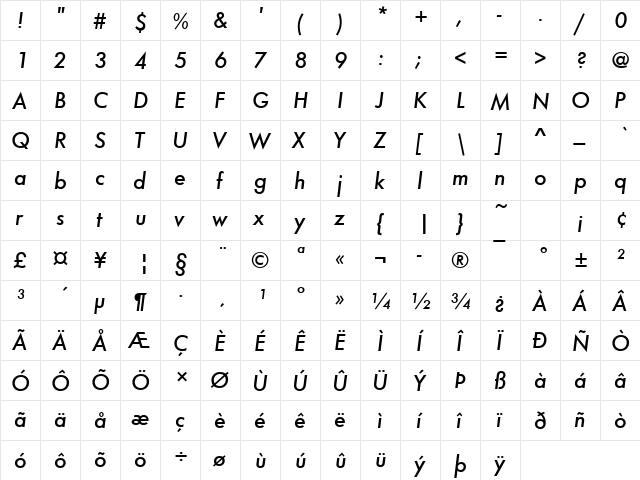
FuturaTMed Oblique
Design Context for FuturaTMed Typeface
FuturaTMed has a distinctly futuristic character, with geometric precision and clean angles that feel at home in technology, gaming, and sci-fi contexts. The slanted form adds forward momentum and visual energy.